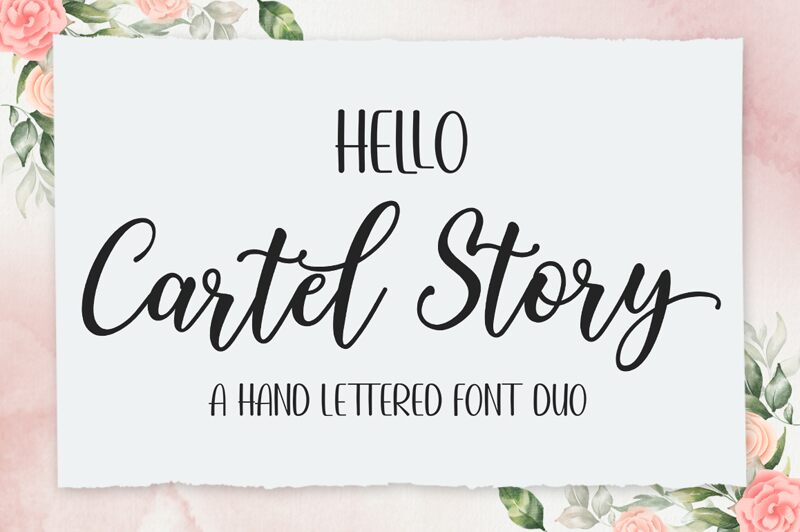
Hello Cartel Story Sans is a narrow, light calligraphy font designed by Muammar Kadafi. Its unique style makes it perfect for creative projects such as stationery designs, logos, handwritten quotes and more.
Hello Cartel Story Sans
Muammar Kadafi